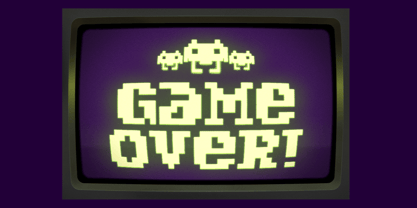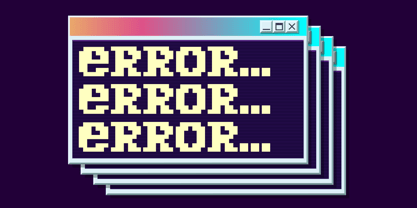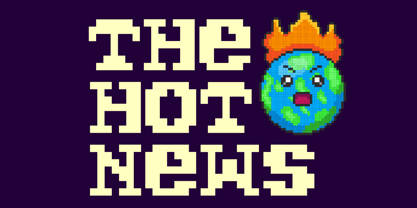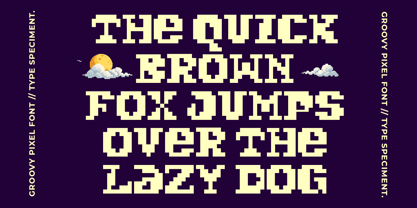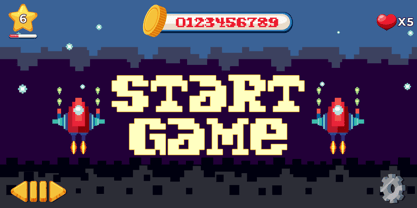
Groovy Pixel
by Groovy Font
The Groovy Pixel Font Family was designed by Ahmad Ginanjar Riyadi and published by Groovy Font. Groovy Pixel contains 1 styles. More about this family
Groovy Pixel is a charming Pixel Display Font reminiscent of retro video game aesthetics. The font style features a nostalgic pixelated design that is perfect for creating a retro vibe in game design themes.
Its playful and vintage look makes it versatile for various applications, adding a fun and unique touch to any project.
Whether you are working on a gaming project or looking to infuse some retro flair into your designs, Groovy Pixel is the ideal font choice.
Designers: Ahmad Ginanjar Riyadi
Foundry: Groovy Font